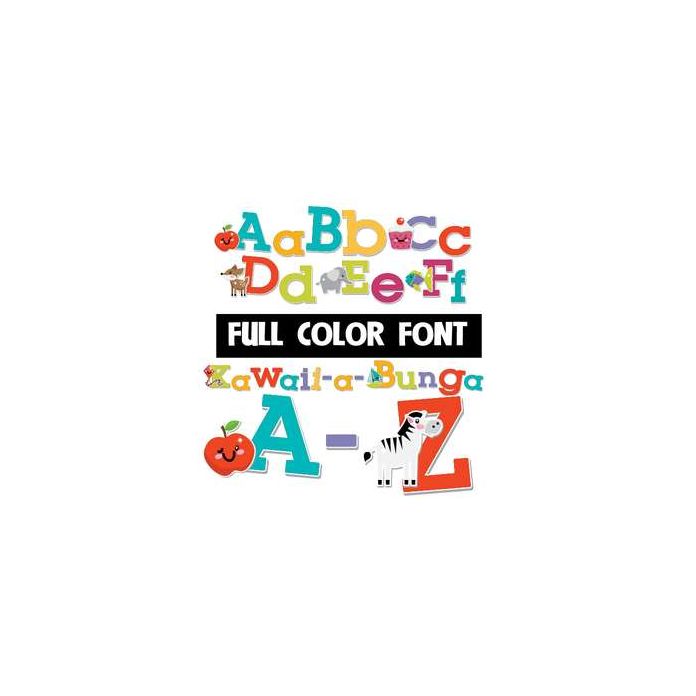
This full-color font features cute, kawaii-styled objects in front of the uppercase letters. There are two alt cases included of different colors that you can access through your system's character map. This font works best for titles, displays, posters and more. Please note color fonts will show as black in non compatible programs. This font type is compatible with Silhouette Studio.